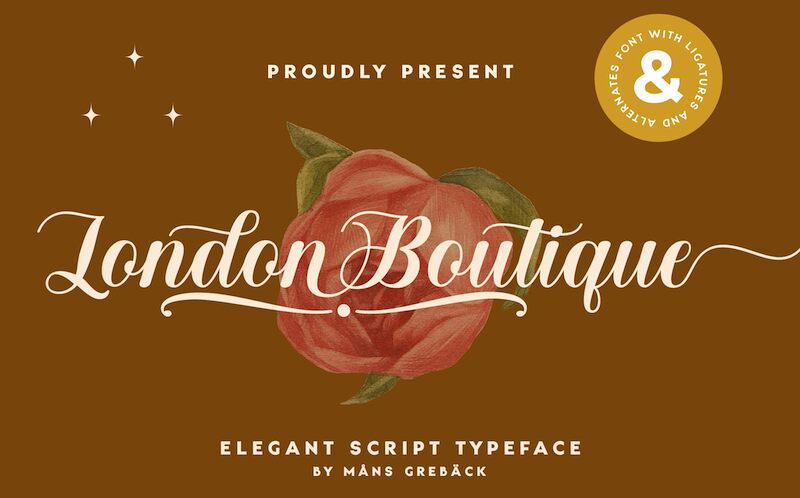
London Boutique is a stunning calligraphy font designed by Mans Greback that exudes elegance and sophistication. With its flowing curves and intricate details, this font is perfect for fashion boutiques, wedding invitations, and luxury brands. The semi-bold typeface adds a modern touch to the classic calligraphy style, making it suitable for both printed materials and digital media. The varying width of the letters creates an eye-catching visual appeal that will captivate your audience. Whether you're working on branding or creating beautiful designs, London Boutique is sure to elevate your project to new heights.
Use underscore _ anywhere in a word to make a swash.
Example: Luxure_Shops
Use multiple underscores to make different swashes.
Example: Angel___Stars
Use # before or after any letter to make an initial or finishing swash.
Example: #loveletter#